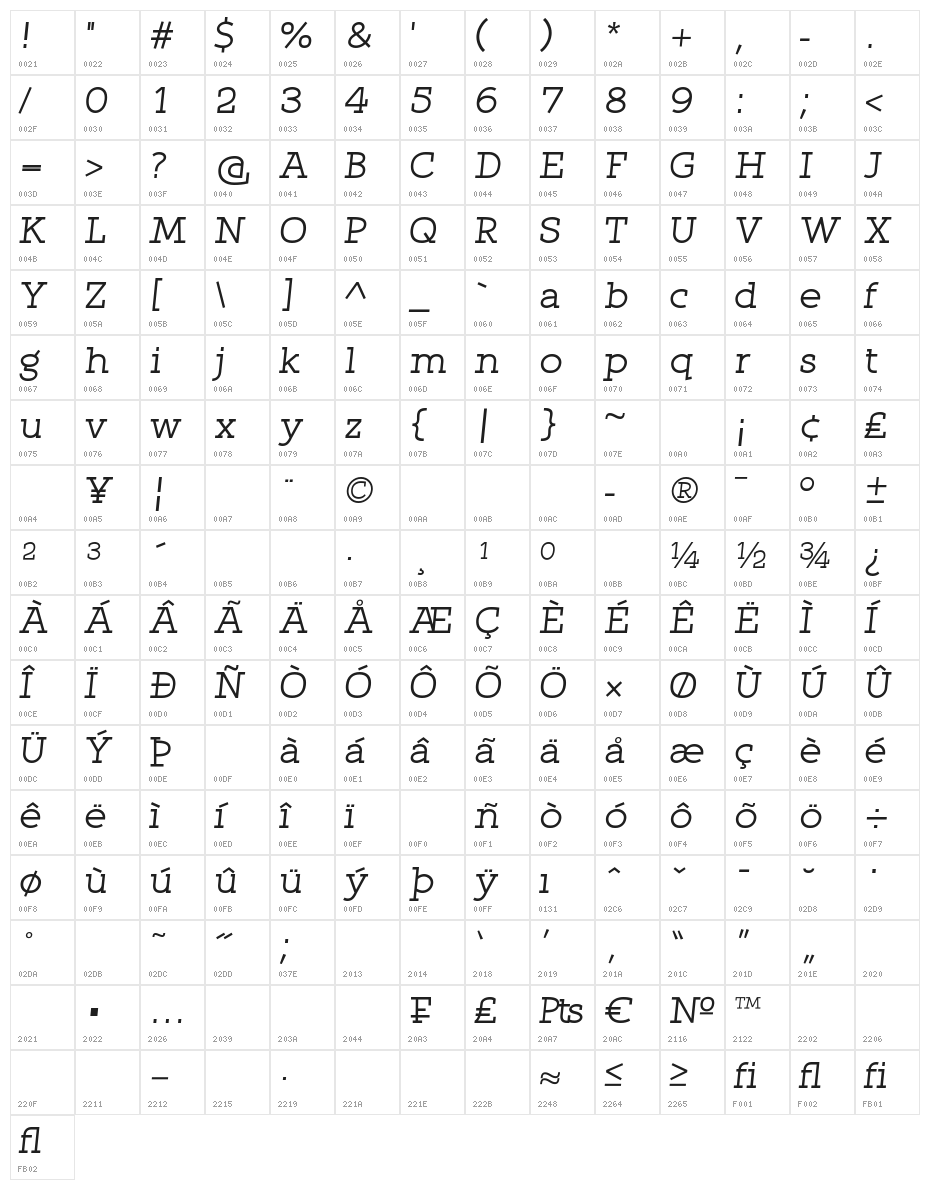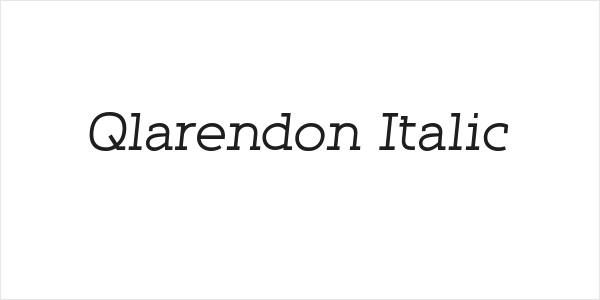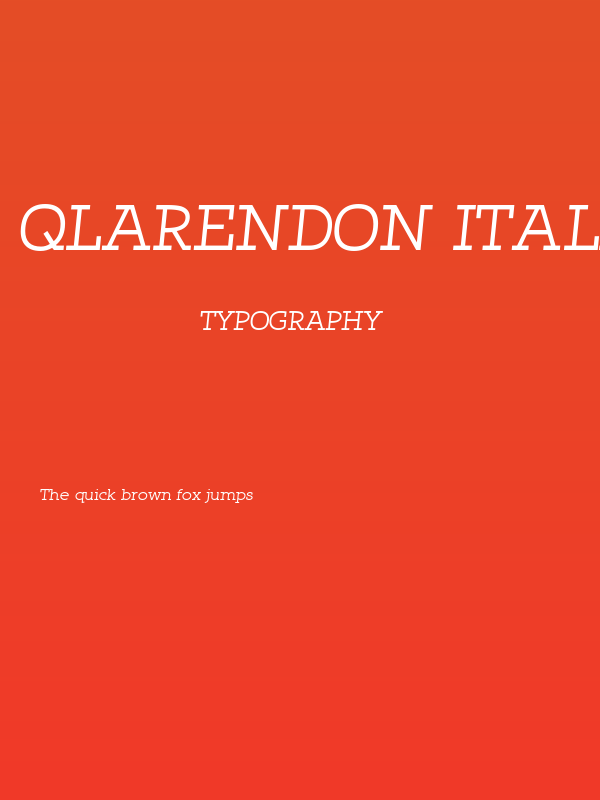
Qlarendon Italic Font
Qlarendon Italic Description
This font exhibits a classic and sophisticated style with a slight italic slant, giving it a dynamic and elegant appearance. The characters are well-defined with a moderate stroke contrast, enhancing readability while maintaining a stylish flair. The uppercase letters are bold and commanding, while the lowercase letters offer a softer, more approachable look. The numerals are clear and balanced, making them suitable for various applications. The special characters are distinct and harmonize well with the overall design, ensuring versatility in usage. This font's design is both timeless and versatile, making it suitable for a wide range of design projects.
| Proposed Projects | Ideal for editorial design, branding, and sophisticated print materials. |